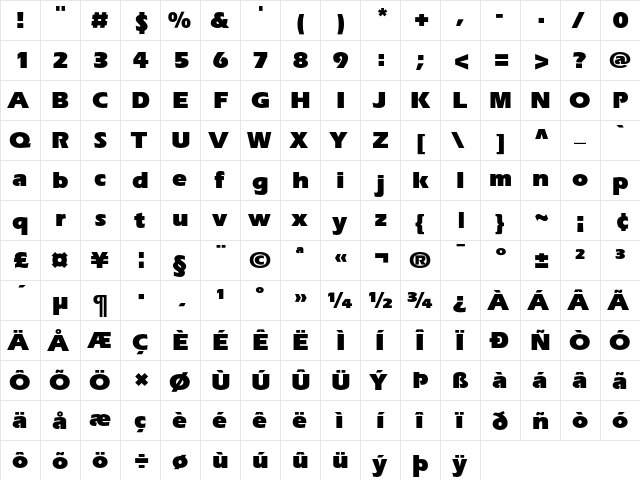
Eras Regular Font Preview
Eras Regular
Eras Regular Font Details
Design Context for Eras Typeface
Eras takes a measured approach to typography — its balanced proportions and neutral character make it a reliable workhorse for both digital and print work.
Pro Tip: Use Eras in both headline and body roles to test its range before committing to a single application.